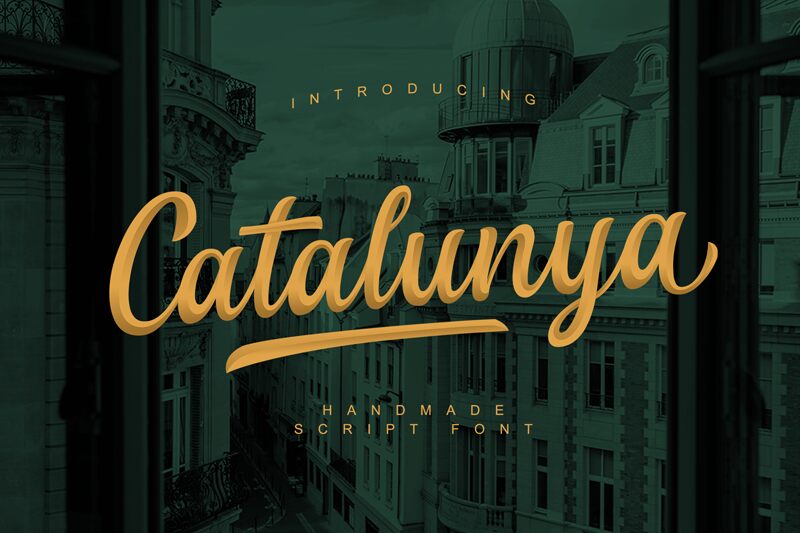
Catalunya is a captivating handwritten font crafted by Damarletter. This expressive script radiates a warm, artisanal charm, with its fluid brushstrokes and organic, slightly imperfect edges. The font's natural flow and distinctive character evoke a sense of authenticity and human touch, making it a compelling choice for projects seeking a touch of handcrafted elegance.
The versatility of Catalunya shines through its versatility, lending itself seamlessly to a wide range of applications. From editorial designs and packaging to branding and advertising, this font's distinctive personality can elevate the visual appeal of any project, adding a touch of artisanal flair that resonates with audiences on an emotive level.